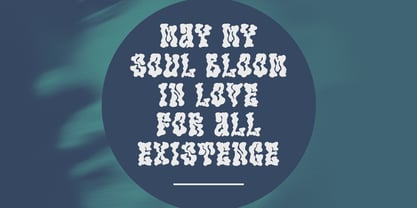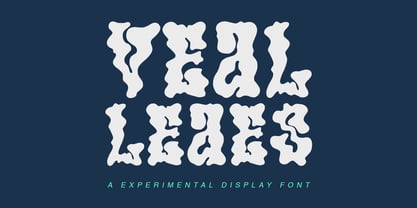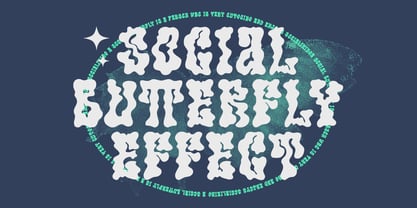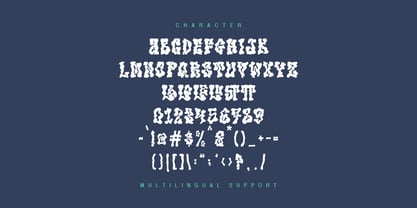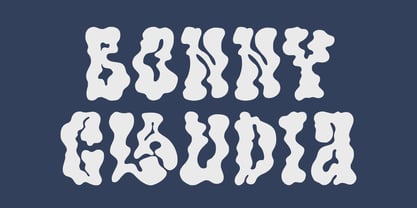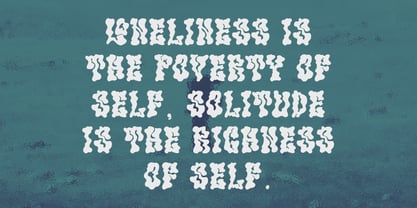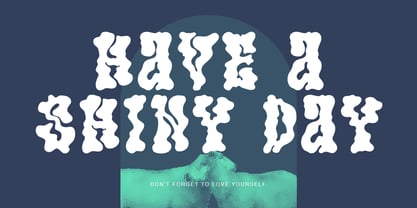
MC Vealleaes
by Maulana Creative
The MC Vealleaes Font Family was designed by Gilang Maulana and published by Maulana Creative. MC Vealleaes contains 1 styles.
Vealleaes is a experimental display font. To give you an extra creative work include ligatures. Vealleaes experimental display font support multilingual more than 100+ language. This font is good for logo design, Social media, Movie Titles, Books Titles, a short text even a long text letter and good for your secondary text font with sans or serif. Make a stunning work with Vealleaes experimental display font.